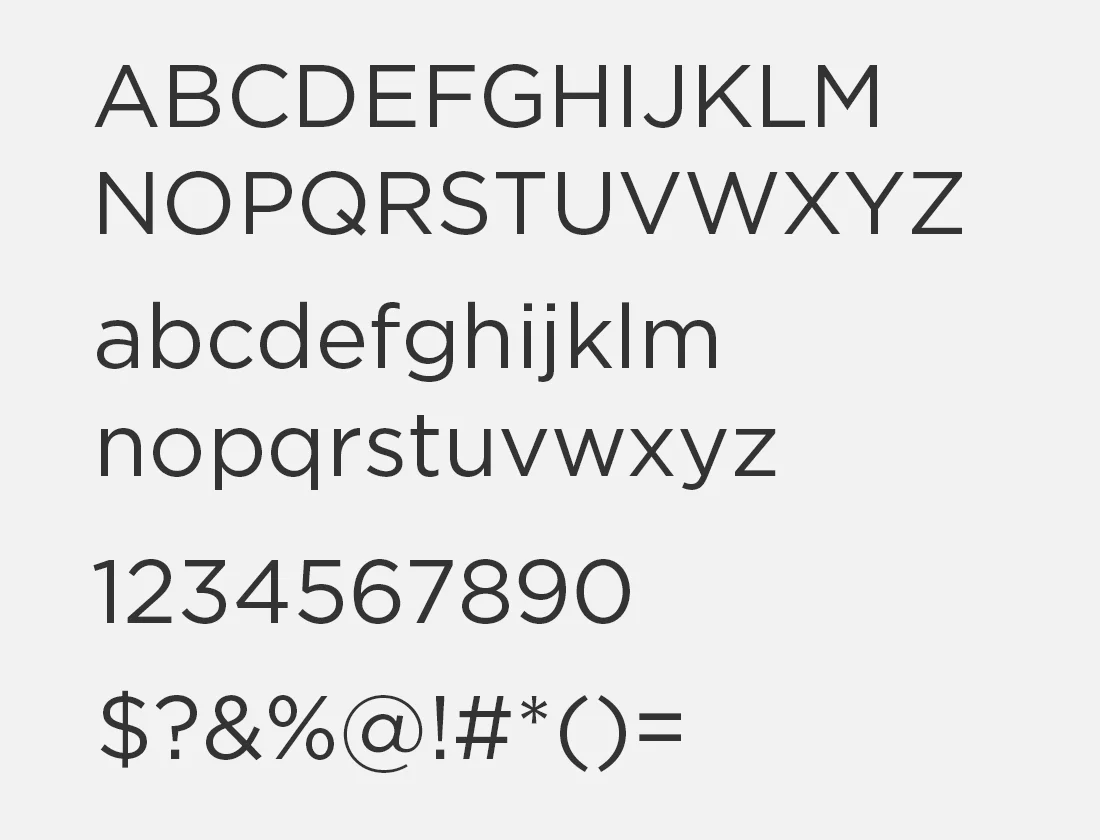
Gotham Font
Designed by Tobias Frere-Jones
Gotham Font has a clean, modern vibe that makes it a favorite for designers looking for something sharp yet highly legible. Inspired by the bold signage you'd find around New York City, it’s perfect for making a statement in both print and digital projects. Whether you’re designing a logo or creating a website, Gotham stands out without being flashy.
Designer:  Tobias Frere-Jones, with Jesse Ragan
Released: 2002 by Hoefler & Co.
Style: Geometric sans-serif (think clean lines, big letters, great readability)
Offers a huge range of weights from thin to bold, including condensed and rounded versions
High x-height (making it super easy to read at any size)
A large character set with support for different languages
Perfect for both digital designs and print materials
Gotham is a go-to for headlines, logos, and UI designs. Want balance? Pair it with a classic serif like Georgia or Times New Roman. Or, keep it modern by pairing Gotham with other sans-serif fonts like Helvetica.